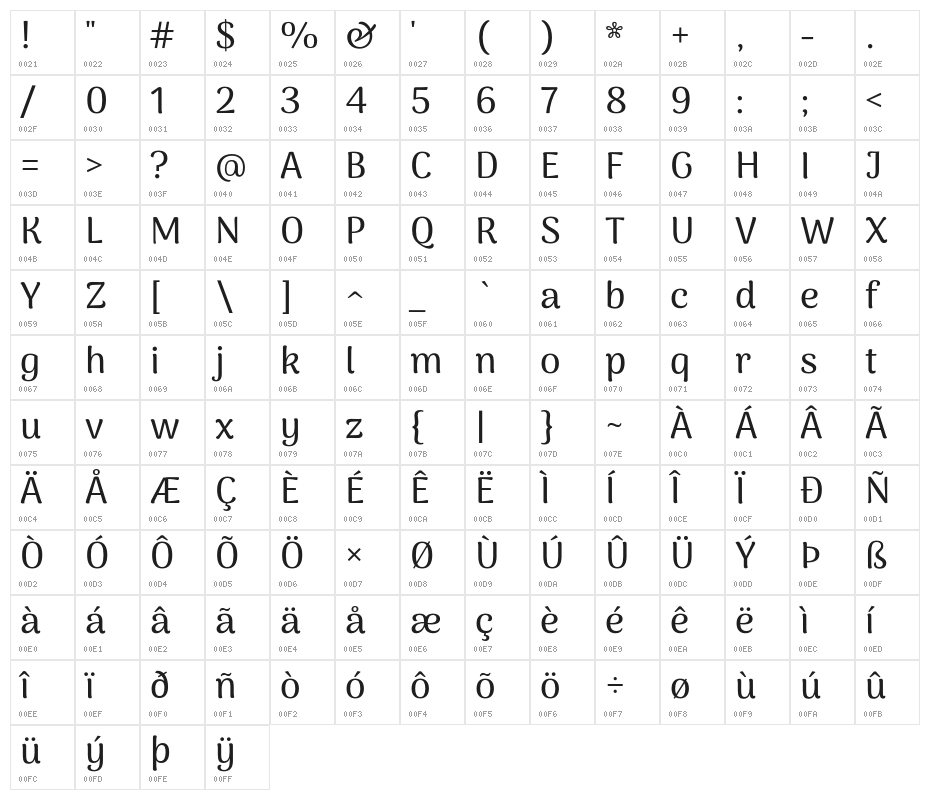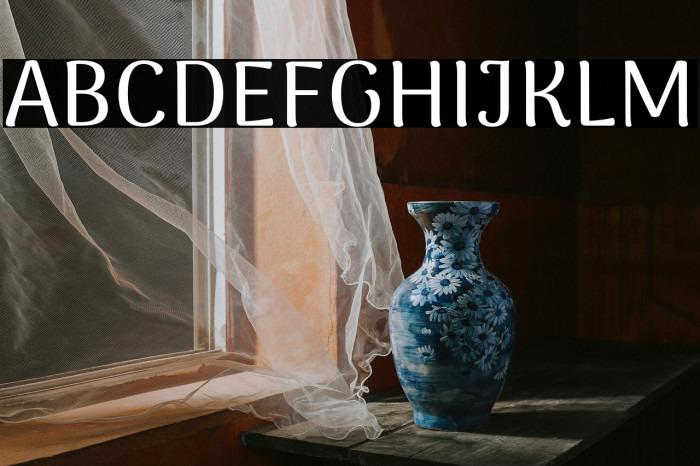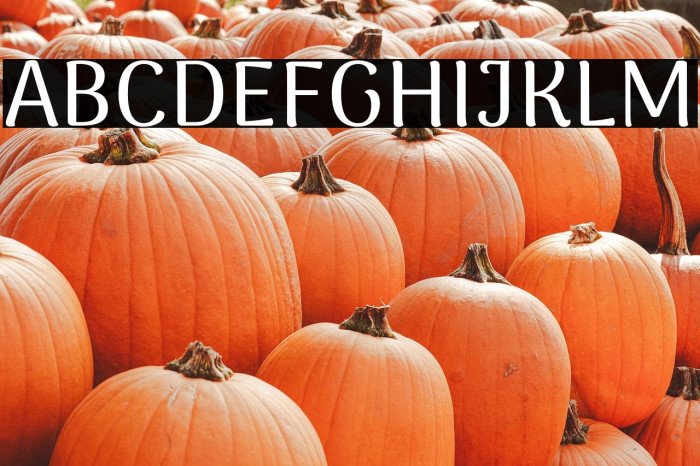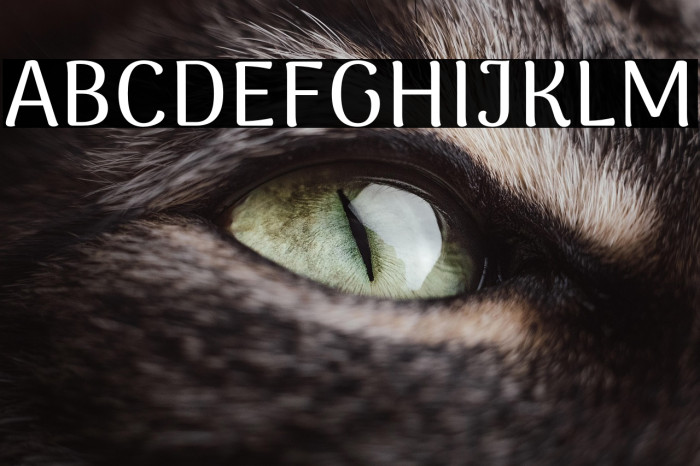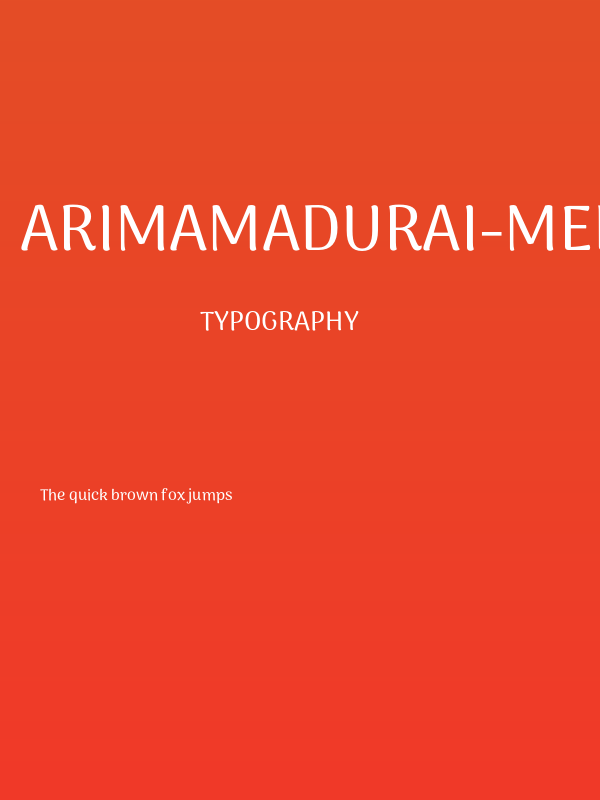
ArimaMadurai-Medium Font
ArimaMadurai-Medium Description
This font features a clean and modern design with a slightly rounded appearance, giving it a friendly and approachable feel. The characters are well-proportioned, with a consistent stroke width that maintains readability across various sizes. The uppercase letters have a subtle elegance, while the lowercase letters exhibit a playful yet professional style. The numerals are clear and distinct, making them suitable for both digital and print applications. Special characters are thoughtfully designed, ensuring versatility in different contexts.
| Proposed Projects | Ideal for branding, advertising, web design, and editorial projects where a modern and friendly typeface is desired. |